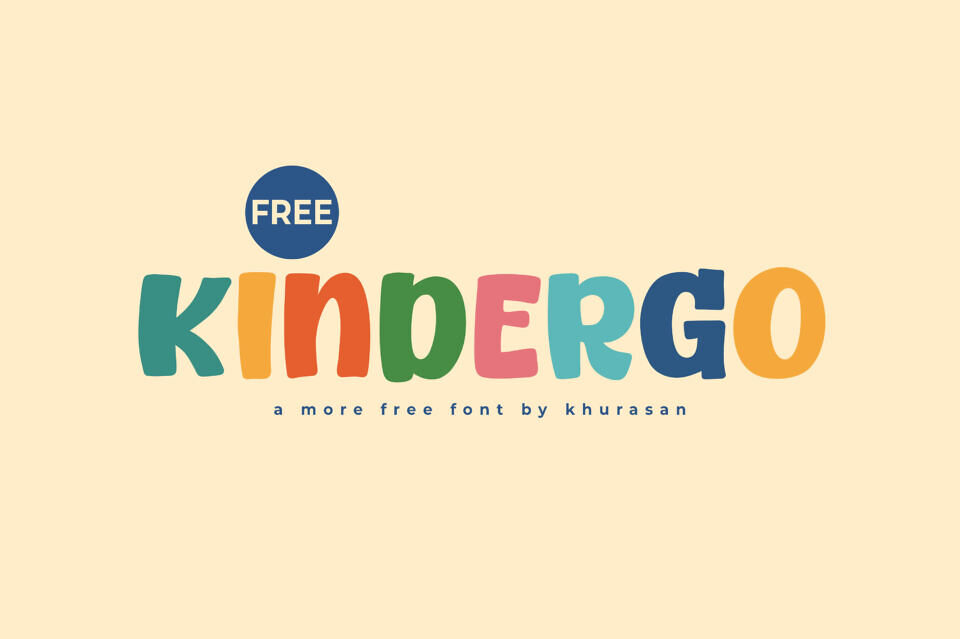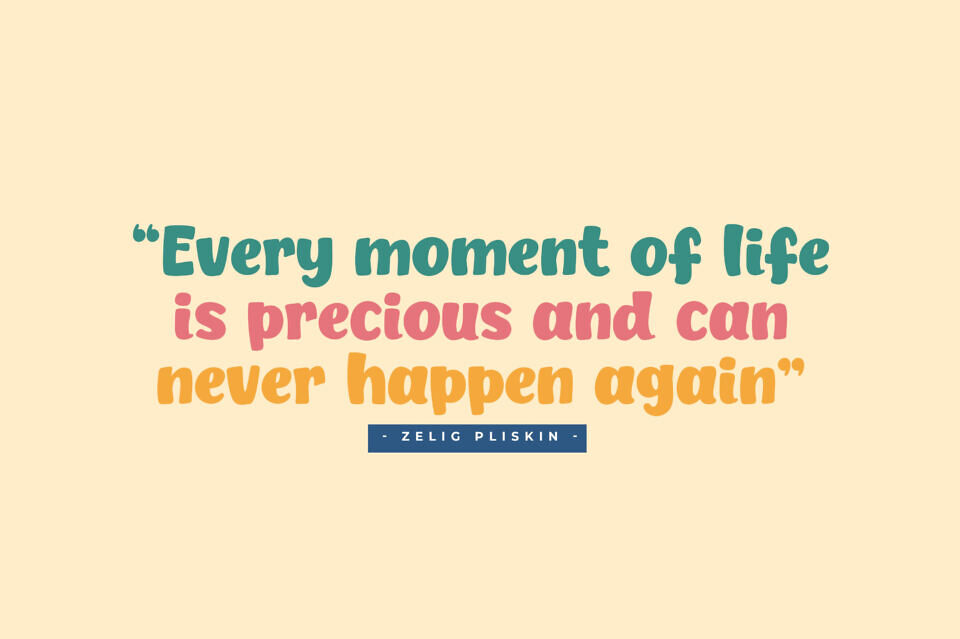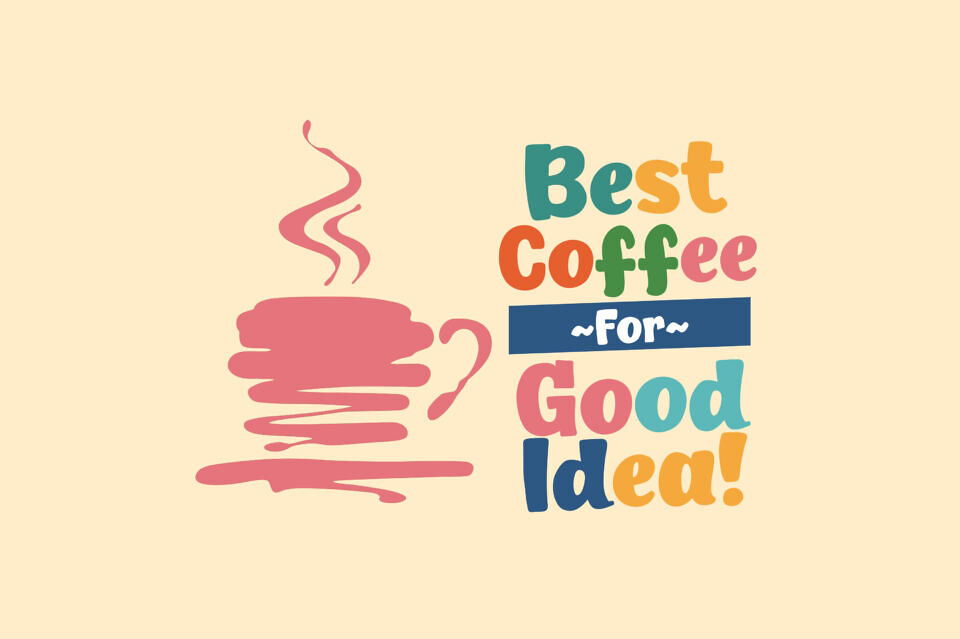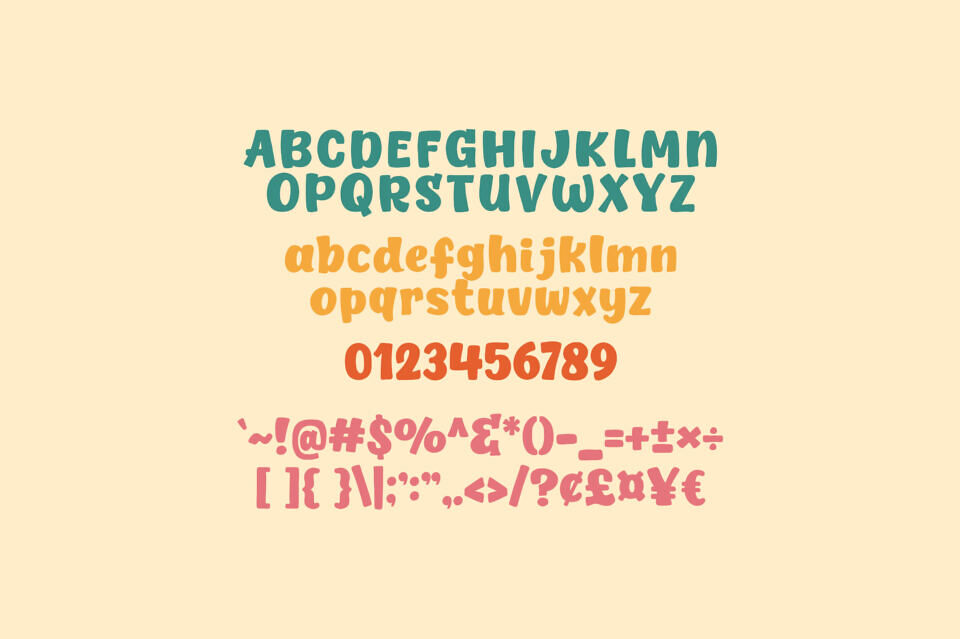
Kindergo is a modern and cute display font perfect for posters, logos, magazines, book covers, banners, and many more! It can easily be matched to an incredibly large set of projects, so add it to your creative ideas and notice how it makes them stand out!